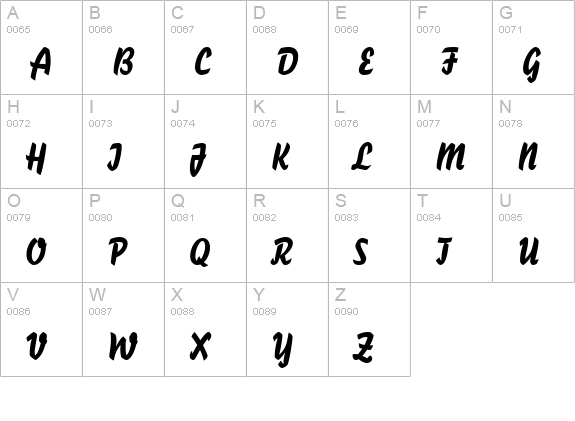
BlizzardD Font Details
BlizzardD font is a stunning and versatile typeface that exudes a sense of power and elegance. Its bold and sharp design makes it perfect for projects that require a strong visual impact, such as headlines, logos, and branding materials. The unique curves and intricate details of BlizzardD font set it apart from other fonts, making it a standout choice for designers looking to make a statement. What's even better is that BlizzardD font is available for free download at FontsMarket.com. This means that you can easily access this exceptional font without any cost, making it a valuable resource for your design projects. Whether you're a seasoned designer or just starting out, BlizzardD font offers endless creative possibilities to enhance your work. Don't miss out on the opportunity to add this remarkable font to your collection today!